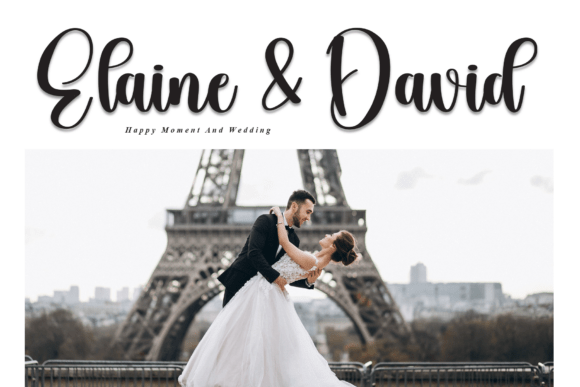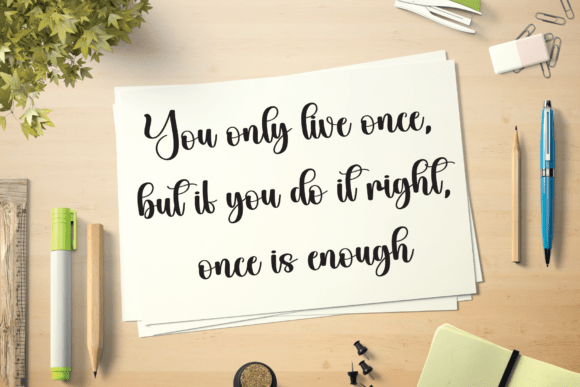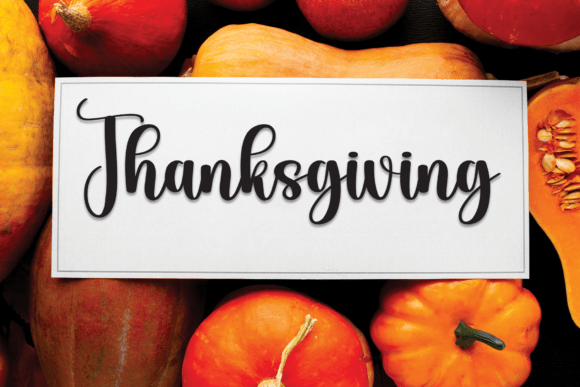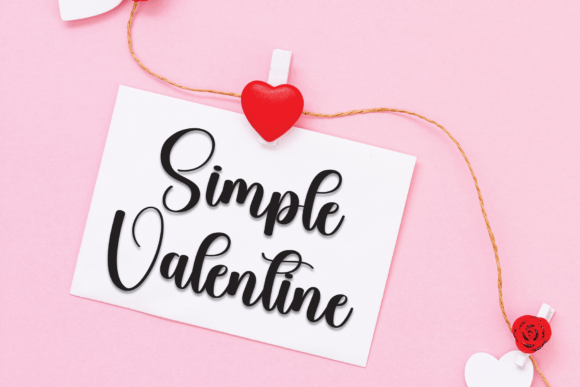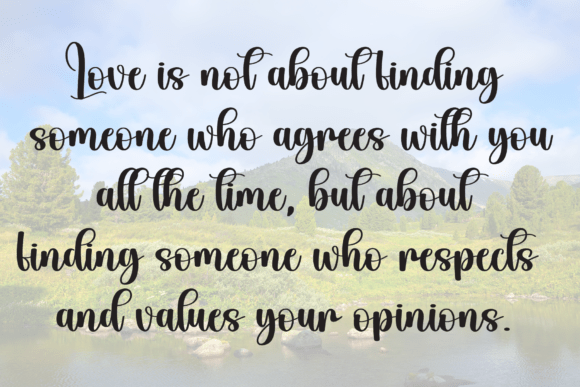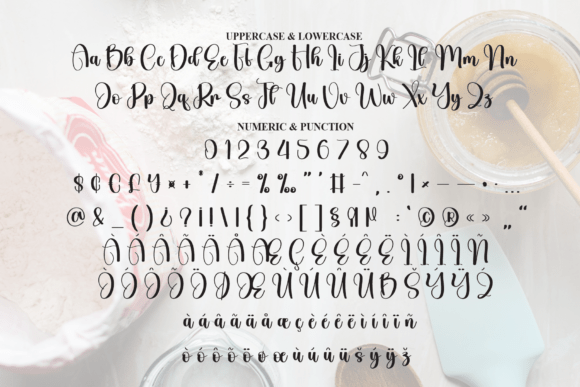
Baking Font: Elevate Your Designs with Elegance and Charm
In the world of typography, a well-crafted font can make all the difference in elevating a design from ordinary to extraordinary. For those seeking a stylish and sophisticated typeface, look no further than the Baking Font. This beautiful, handwritten script font seamlessly blends elegance with a modern flair, making it an ideal choice for a wide range of creative projects.
The Characteristics of Baking Font
Baking Font is characterized by its flowing strokes and organic curves, which bring a sense of warmth and refinement to any design. Its elegant and fluid lines evoke a sense of luxury and sophistication, while its modern flair ensures that it remains fresh and contemporary. Whether you’re working on a branding project, creating invitations, or designing social media graphics, this versatile font is sure to impress.
Key Features of Baking Font
- Handwritten Script Style: Baking Font boasts a beautiful, handwritten script style that adds a personal touch to any design.
- Elegant and Modern: Its flowing strokes and organic curves bring a sense of elegance and modernity to any project.
- Versatile: Suitable for a wide range of applications, including branding, invitations, social media graphics, and more.
- Effortless Charm: Adds a refined and sophisticated touch to any design with ease.
Uses for Baking Font
Baking Font’s versatility makes it an excellent choice for various design projects. Here are some of the many ways you can utilize this beautiful font:
Branding
Create a lasting impression with your brand identity by incorporating Baking Font into your logo, packaging, or marketing materials. Its elegant and modern style will help you establish a sophisticated brand image that resonates with your target audience.
Invitations and Stationery
Add a touch of luxury and refinement to your invitations, greeting cards, and stationery with Baking Font. Its beautiful script style will make your correspondence stand out and leave a lasting impression on the recipient.
Social Media Graphics
Elevate your social media presence with eye-catching graphics featuring Baking Font. Whether you’re creating promotional graphics, quotes, or announcements, this font will add a touch of elegance and sophistication to your content.
Tips for Using Baking Font Effectively
To get the most out of Baking Font, consider the following tips:
Pair with Complementary Fonts
Combine Baking Font with complementary fonts to create visual interest and hierarchy in your design. Choose fonts that contrast with Baking Font’s script style to create a harmonious and balanced look.
Experiment with Colors and Textures
Don’t be afraid to experiment with different colors and textures to add depth and visual interest to your design. Baking Font looks stunning in a variety of colors, from rich jewel tones to soft pastels.
Use for Headings and Titles
Baking Font is perfect for headings and titles, where its elegant and modern style can shine. Use it to create eye-catching headlines that draw attention and add a touch of sophistication to your design.
In conclusion, Baking Font is a stylish and sophisticated handwritten script font that combines elegance with a modern flair. Its flowing strokes and organic curves bring warmth and refinement to any project, making it an ideal choice for designers and crafters seeking to elevate their designs. With its versatility and effortless charm, Baking Font is sure to become a staple in your font collection.